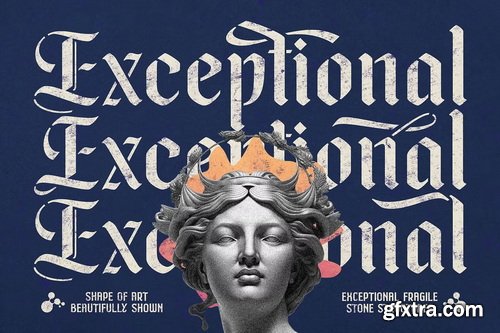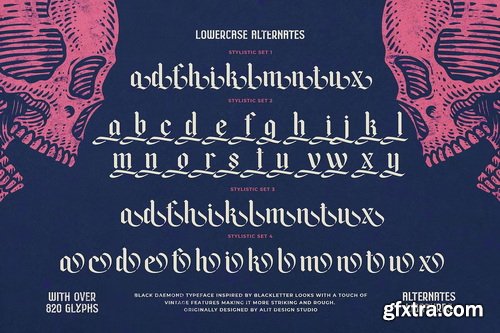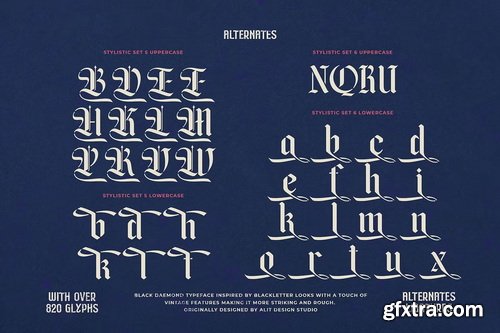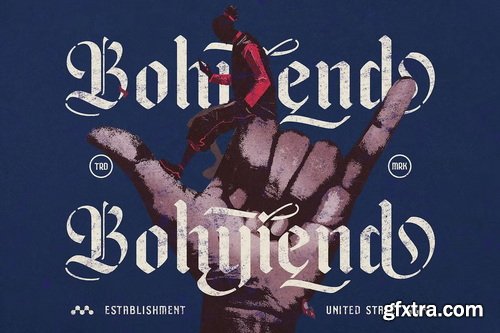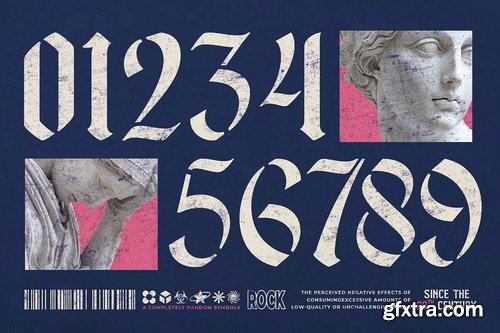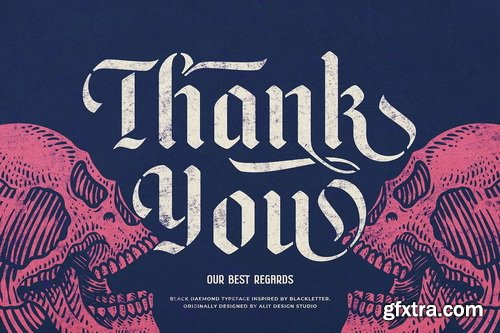
CreativeMarket - Black Deamond Typeface
Introducing Black Deamond, a striking blackletter stencil typeface that blends medieval elegance with a raw, modern edge. Designed for those who seek a bold, rebellious, and vintage gothic style, Black Deamond delivers unmatched versatility with 820 meticulously crafted characters. Elevate your designs with the raw power and mystique of Black Deamond. Perfect for band logos, dark-themed branding, album covers, and more.